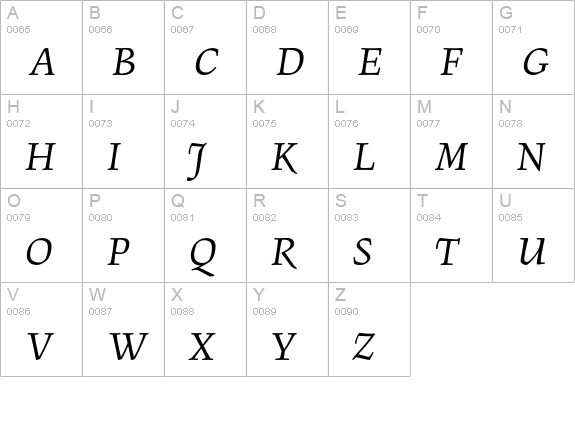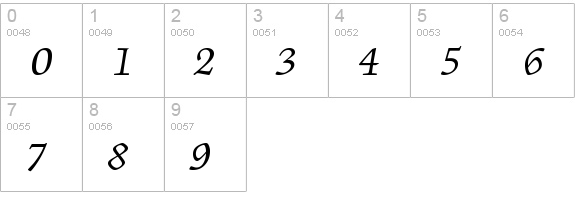
Figural Std Book Italic is a comfortable, highly readable, italic variant in the Figural typeface family \xE2\x80\x94 well suited to long-form body text, articles, and editorial content.
Figural Std Book Italic is a stylish and elegant typeface that adds a touch of sophistication to any design project. With its graceful curves and slanted appearance, this font conveys a sense of modernity and creativity. Perfect for use in headlines, quotes, or branding materials, Figural Std Book Italic stands out while maintaining a sense of professionalism. The best part is that Figural Std Book Italic is available for free download at FontsMarket.com. Whether you're a graphic designer, a student, or someone looking to enhance their written content, this font is a valuable addition to your collection. Don't miss out on the opportunity to elevate your designs with the beauty and versatility of Figural Std Book Italic. Download it now and start creating captivating visuals that leave a lasting impression.